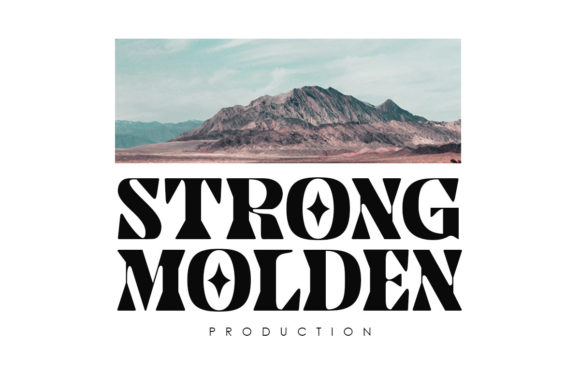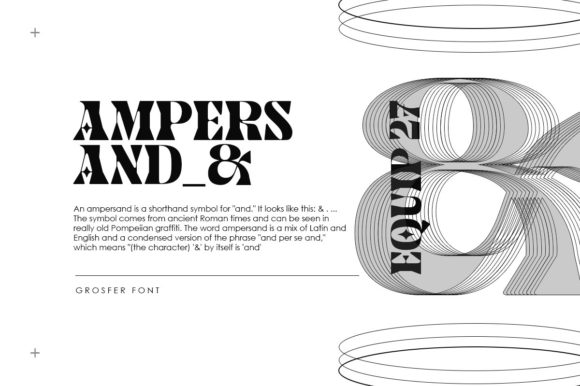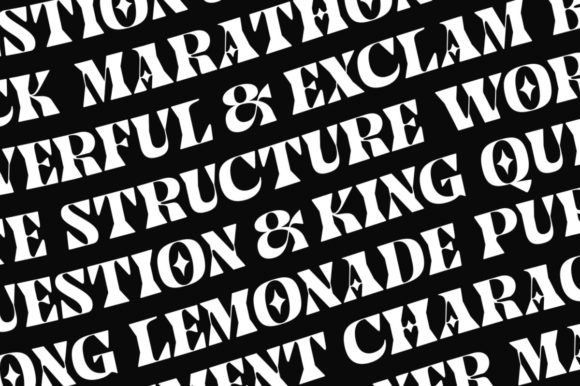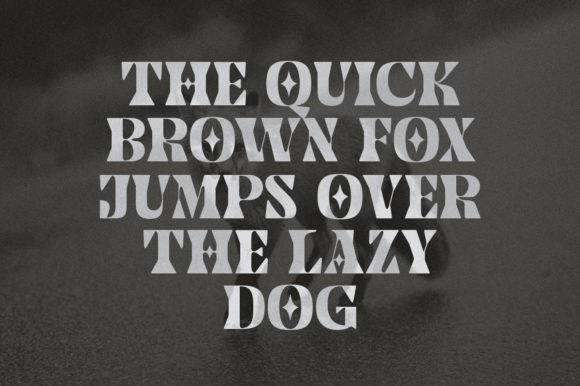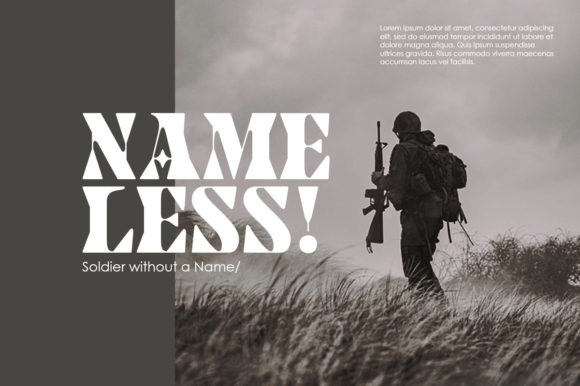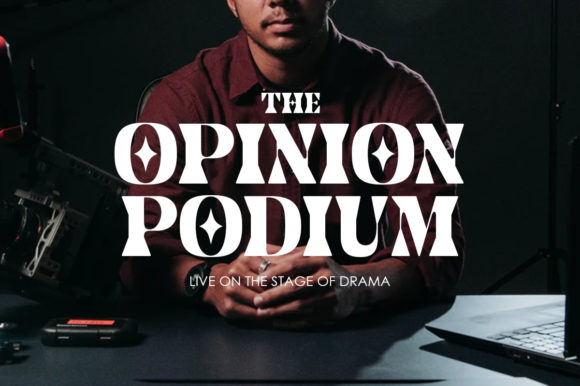
Grosfer Font: The Ultimate Display Font for Bold Designs
In the world of typography, fonts play a crucial role in conveying the tone and personality of a design. When it comes to making a statement, a bold and thick lettered display font is often the go-to choice. One such font that has been making waves in the design community is Grosfer. In this article, we’ll dive into the world of Grosfer font, exploring its features, benefits, and uses.
What is Grosfer Font?
Grosfer is a cool, bold, and thick lettered display font that exudes strength, confidence, and dynamism. This font is perfect for designers who want to add a fierce character to their designs. With its robust and sturdy letterforms, Grosfer is ideal for creating eye-catching headlines, titles, and captions that demand attention.
Key Features of Grosfer Font
- Bold and Thick Lettering: Grosfer’s letterforms are designed to be bold and thick, making it perfect for display purposes.
- Strong and Confident: The font’s sturdy letterforms convey a sense of strength and confidence, making it ideal for designs that require a bold statement.
- Dynamic and Versatile: Grosfer can be used in a variety of design contexts, from posters and flyers to digital graphics and branding.
- Easy to Read: Despite its boldness, Grosfer is surprisingly easy to read, making it perfect for use in titles, headings, and captions.
Benefits of Using Grosfer Font
So why should designers choose Grosfer font for their projects? Here are just a few benefits of using this amazing display font:
- Adds Visual Impact: Grosfer’s bold and thick lettering is guaranteed to grab attention and add visual impact to your designs.
- Conveys Confidence and Strength: The font’s sturdy letterforms convey a sense of confidence and strength, making it perfect for designs that require a bold statement.
- Versatile and Adaptable: Grosfer can be used in a variety of design contexts, from print to digital, and can be easily paired with other fonts to create a unique look.
- Perfect for Branding and Identity: Grosfer’s bold and dynamic letterforms make it an excellent choice for branding and identity projects, such as logos, business cards, and letterheads.
Use Cases for Grosfer Font
Grosfer font is perfect for a wide range of design projects, including:
- Posters and Flyers: Grosfer’s bold and eye-catching letterforms make it perfect for creating attention-grabbing posters and flyers.
- Digital Graphics: The font’s versatility and adaptability make it an excellent choice for digital graphics, such as social media graphics, infographics, and presentations.
- Branding and Identity: Grosfer’s bold and dynamic letterforms make it an excellent choice for branding and identity projects, such as logos, business cards, and letterheads.
- Headings and Titles: Grosfer’s easy-to-read letterforms make it perfect for use in headings and titles, adding a touch of boldness and sophistication to your designs.
Tips for Using Grosfer Font Effectively
To get the most out of Grosfer font, here are a few tips to keep in mind:
- Use it Sparingly: Grosfer’s boldness can be overwhelming if overused. Use it sparingly to add emphasis and create visual interest.
- Pair it with Other Fonts: Grosfer pairs well with a variety of fonts. Experiment with different pairings to create a unique look.
- Adjust the Size and Color: Experiment with different sizes and colors to create visual hierarchy and add depth to your designs.
In conclusion, Grosfer font is a powerful and versatile display font that can add a fierce character to your designs. With its bold and thick letterforms, Grosfer is perfect for creating eye-catching headlines, titles, and captions that demand attention. Whether you’re a designer, crafter, or simply someone who appreciates great typography, Grosfer font is definitely worth checking out.